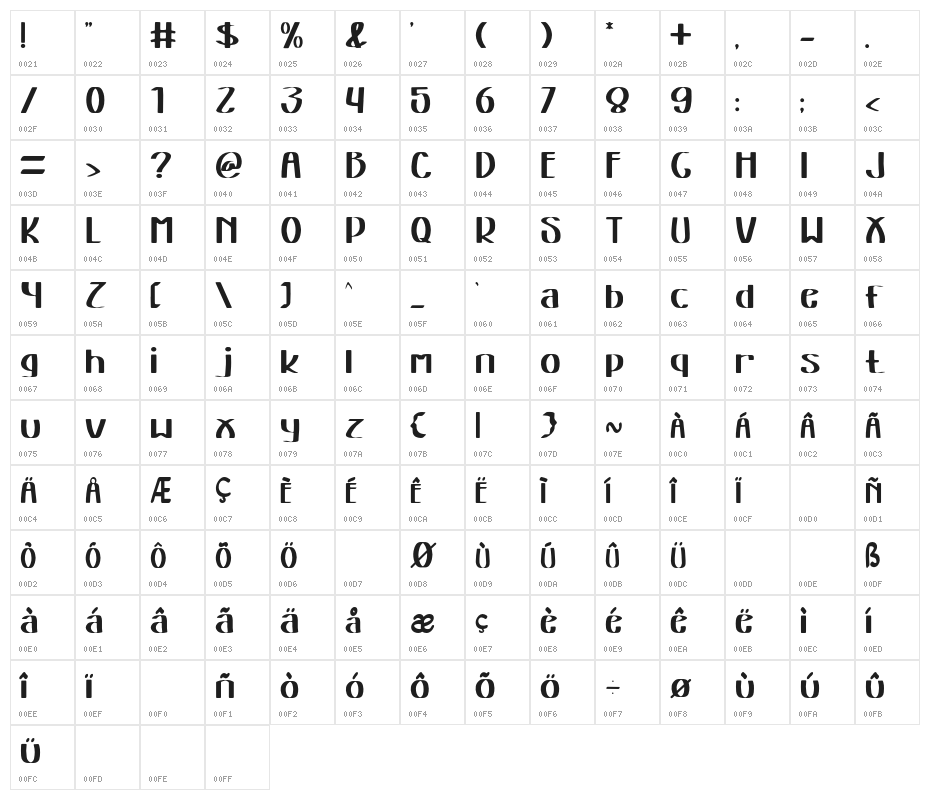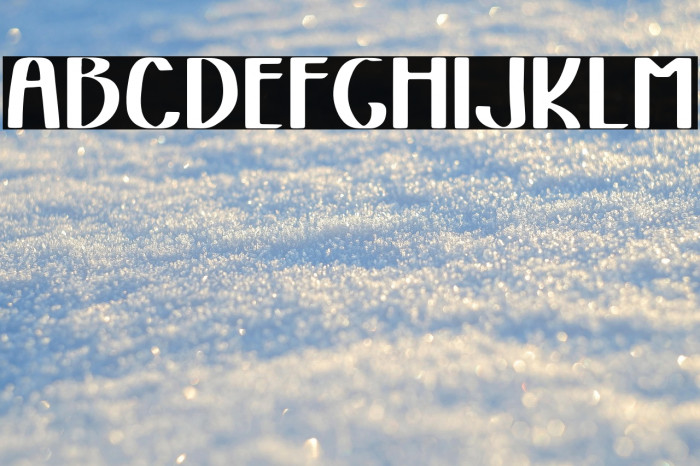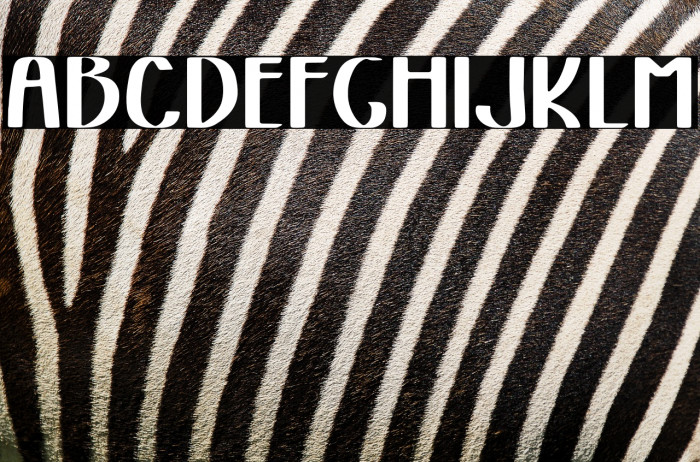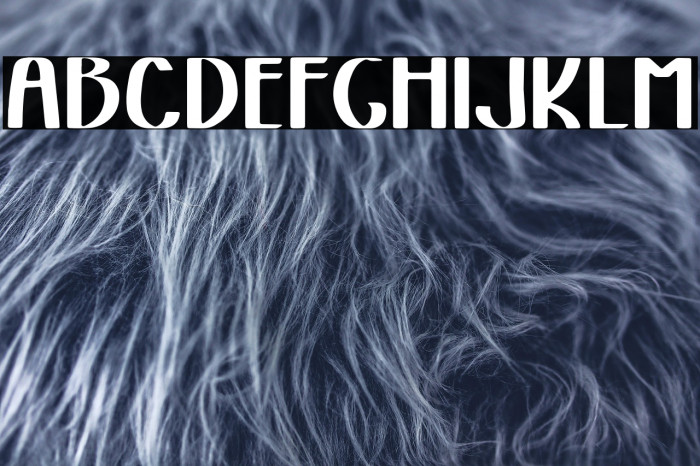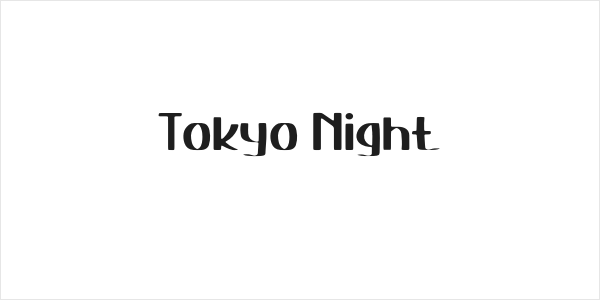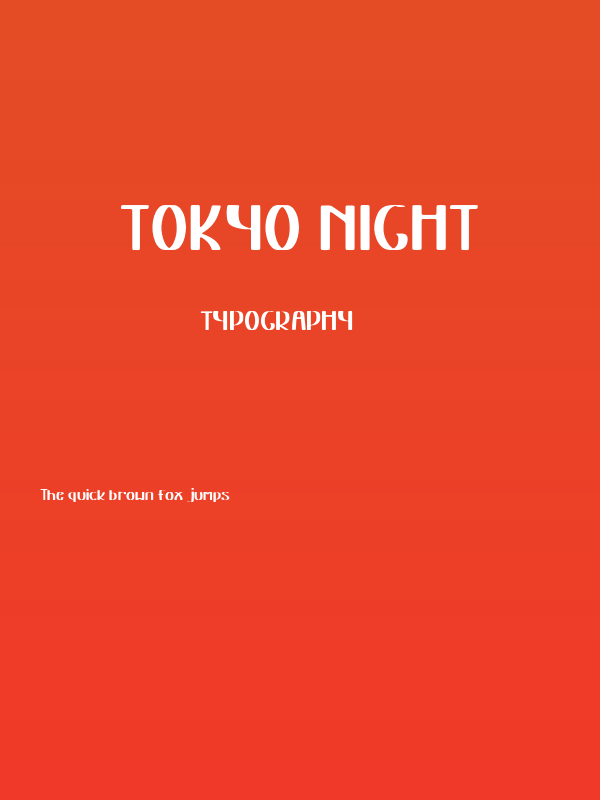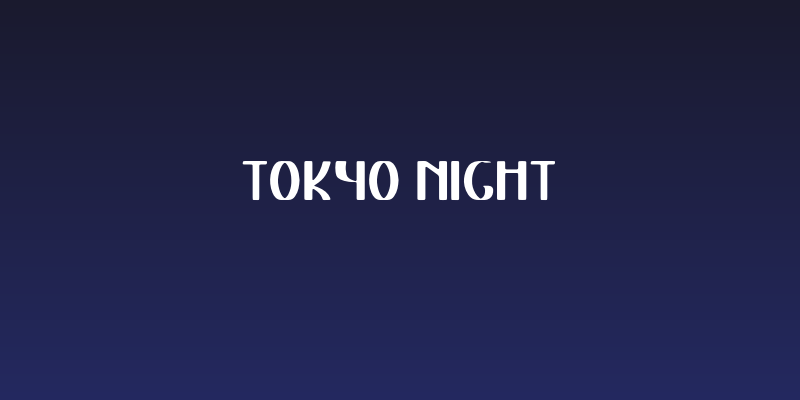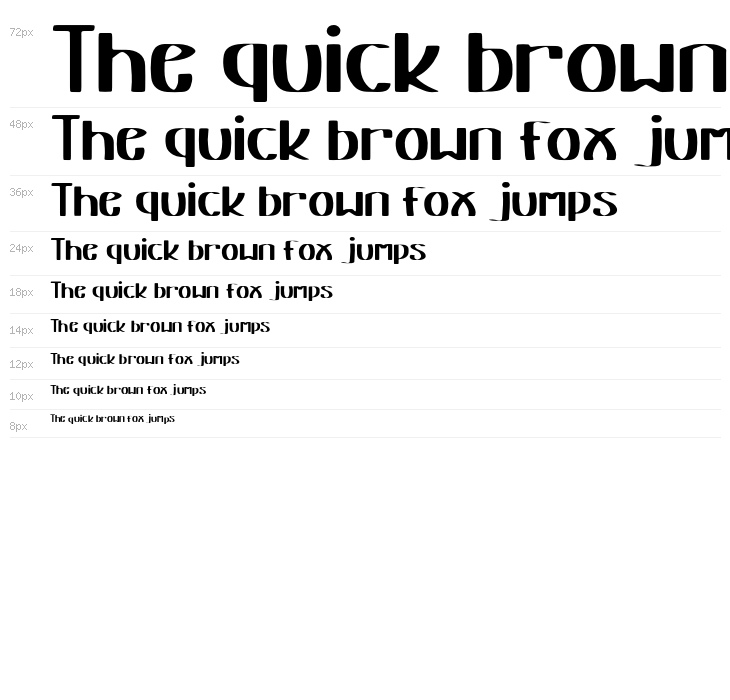
Tokyo Night Font
Tokyo Night Description
This font features a bold and dynamic style with a modern flair. The characters are designed with a unique blend of sharp angles and smooth curves, creating a striking visual impact. The uppercase letters are bold and commanding, while the lowercase letters maintain a consistent flow with subtle variations in stroke width. The numerals are equally bold, ensuring readability and consistency across different uses. Special characters are crafted with the same attention to detail, making them stand out while maintaining harmony with the rest of the font. This font is perfect for projects that require a contemporary and eye-catching design.